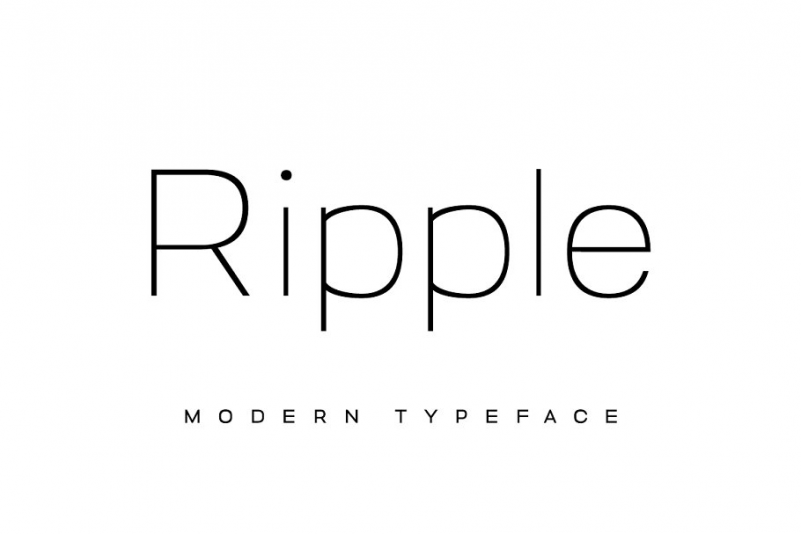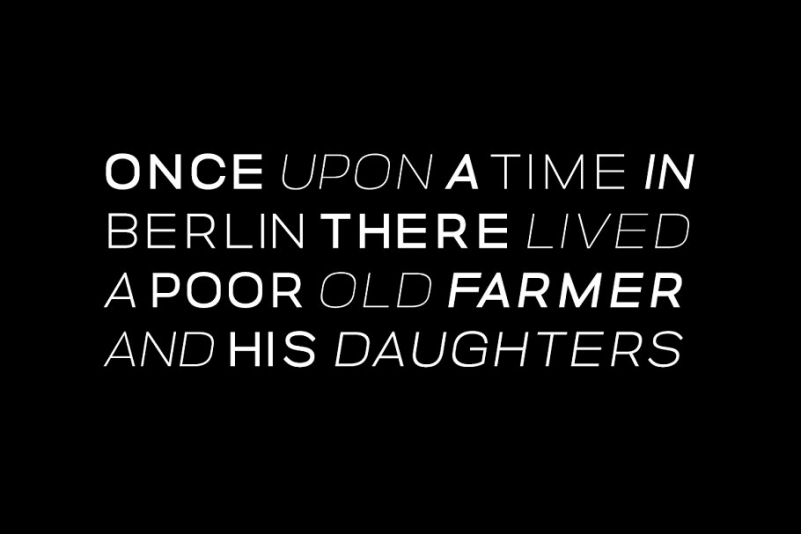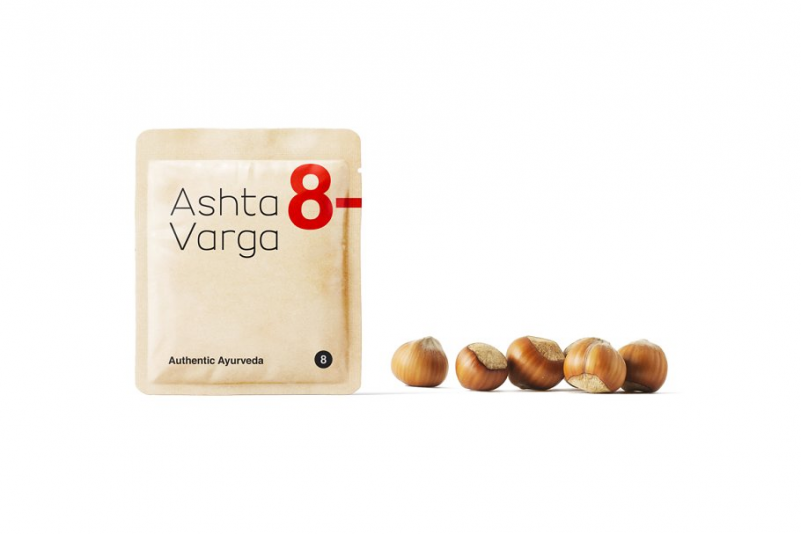
RIPPLE Font
RIPPLE is a minimal & modern Sans Serif typeface that will be best suited for creating logotypes, branding, headlines, corporate identities, marketing materials for web & print as well as any type of minimal designs. Please see the included demo graphics to get an idea about the capability of this typeface when used for branding and marketing material design.